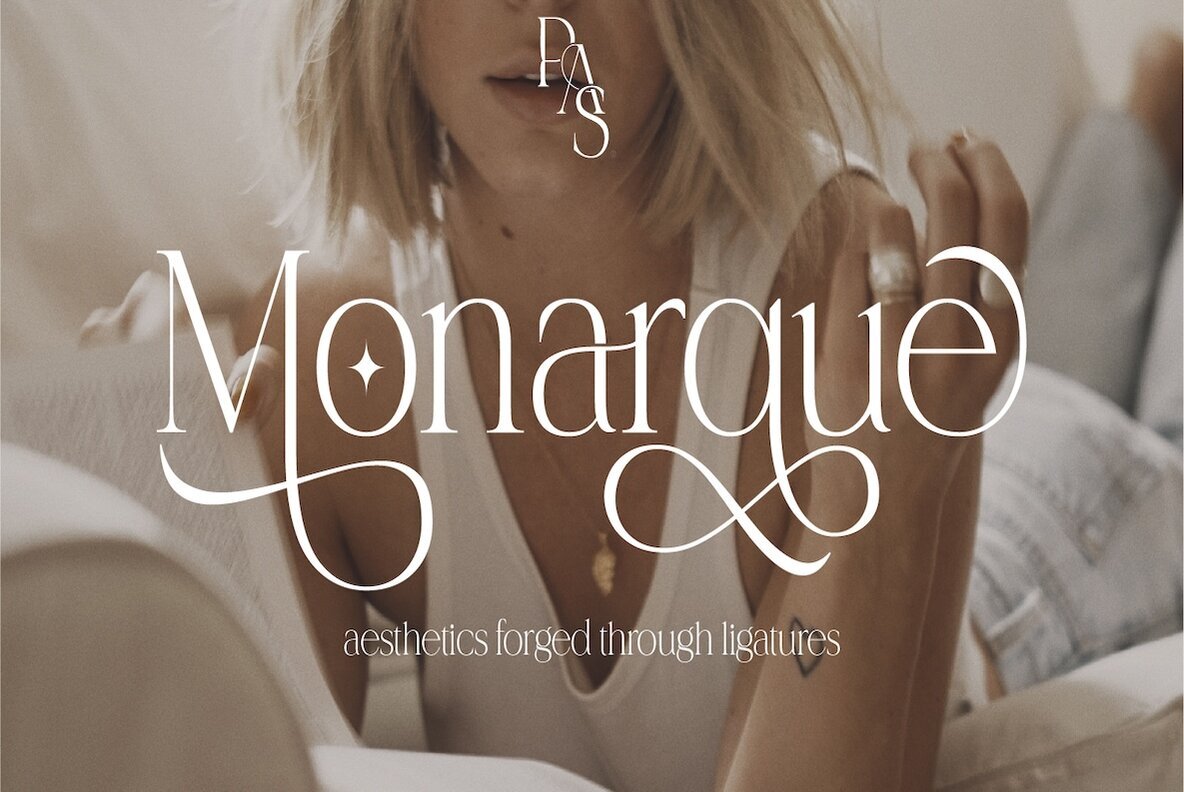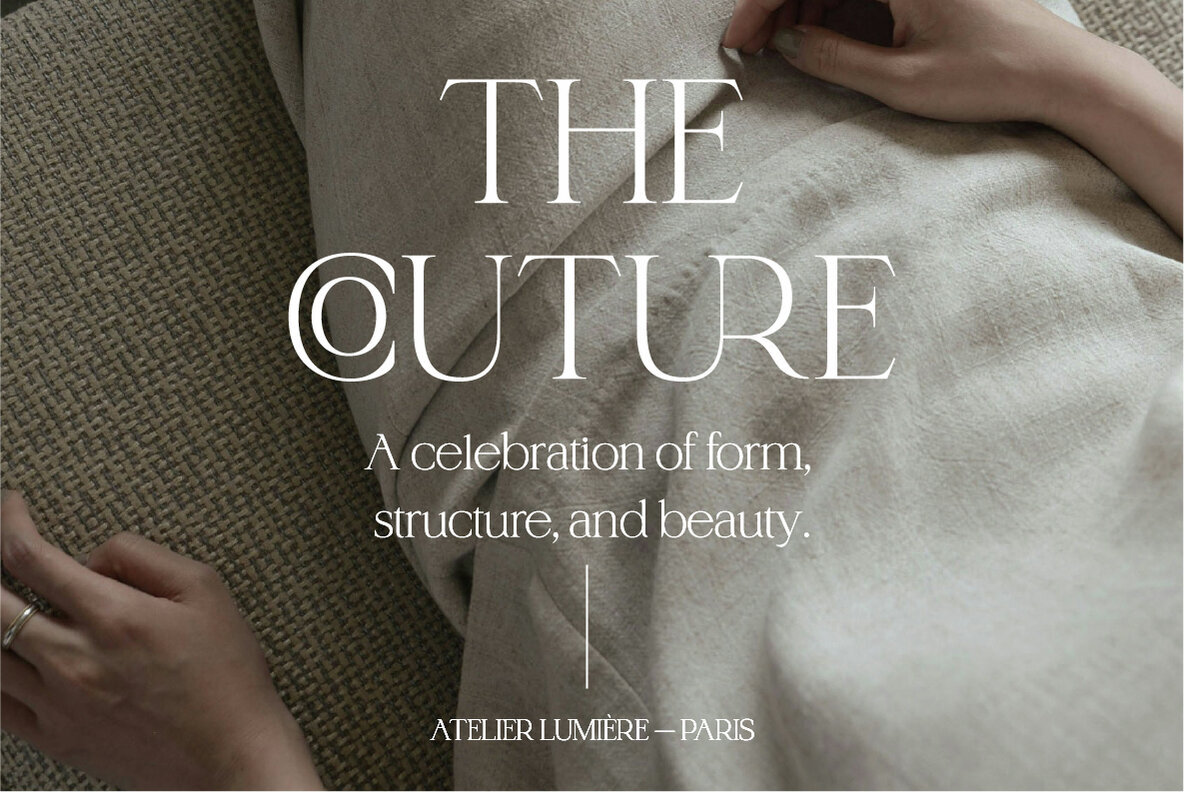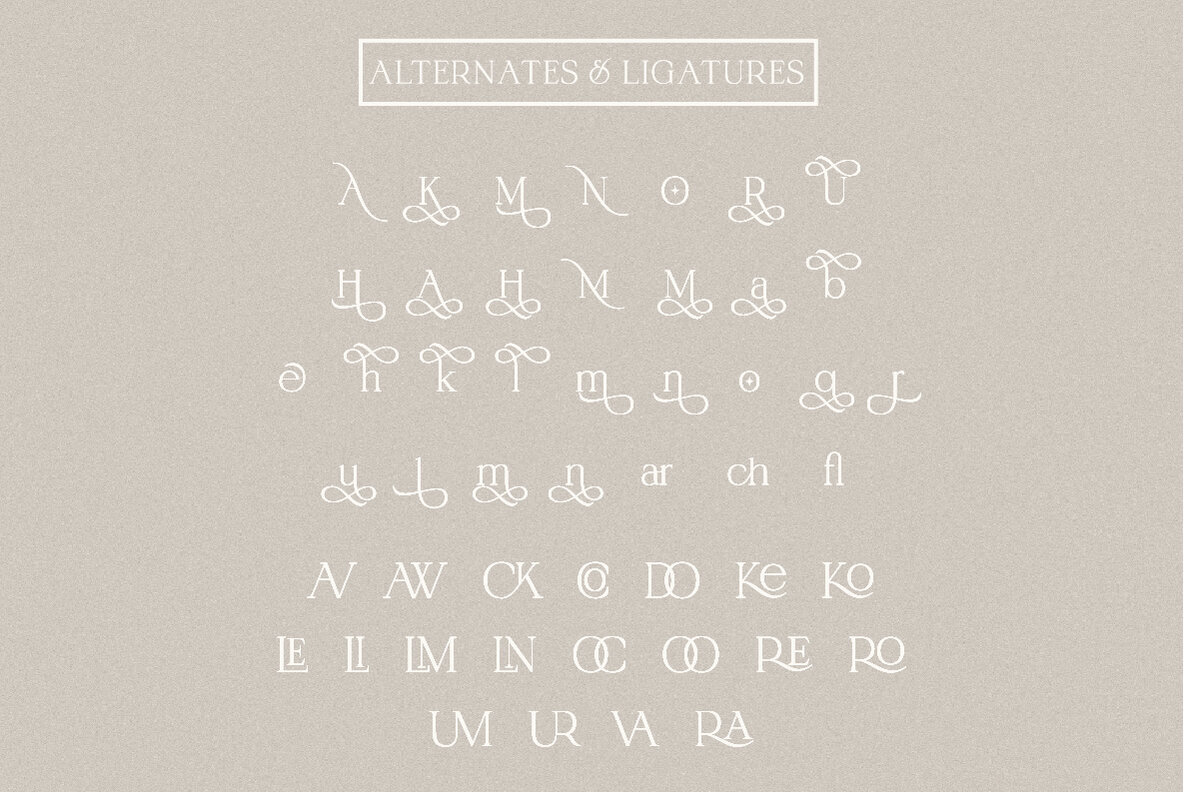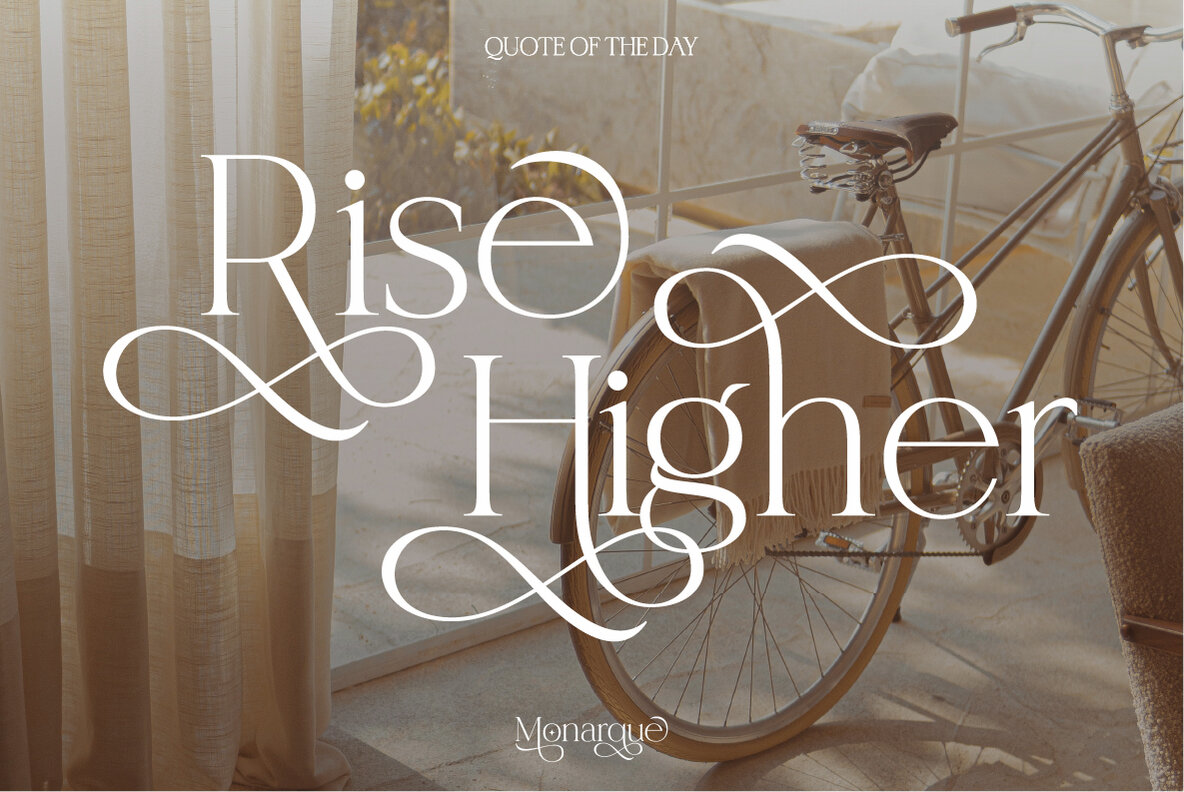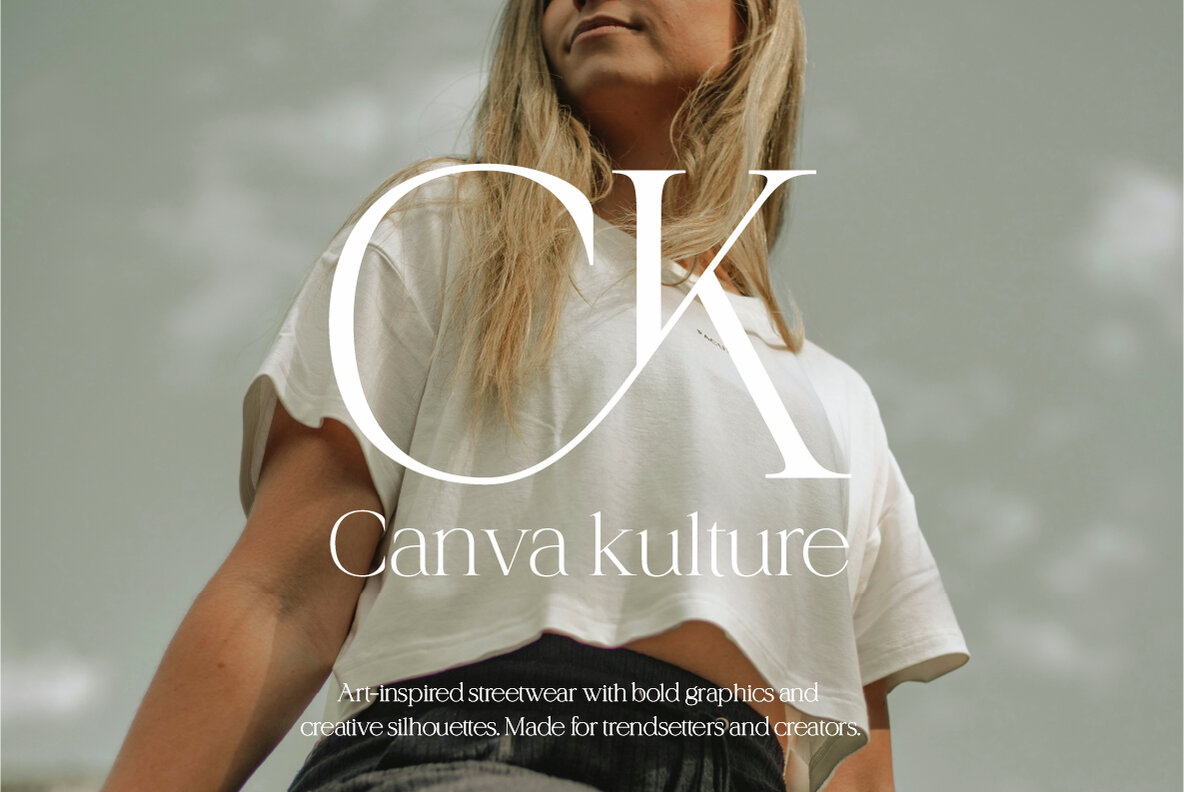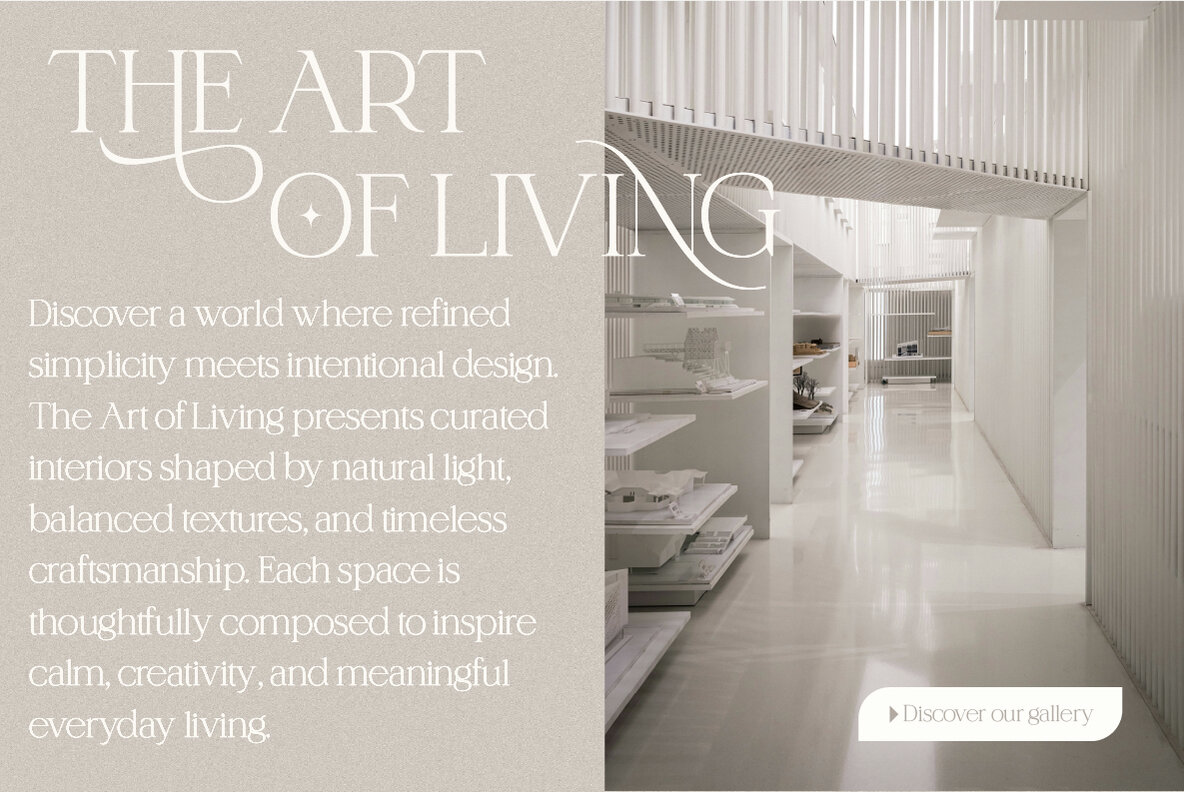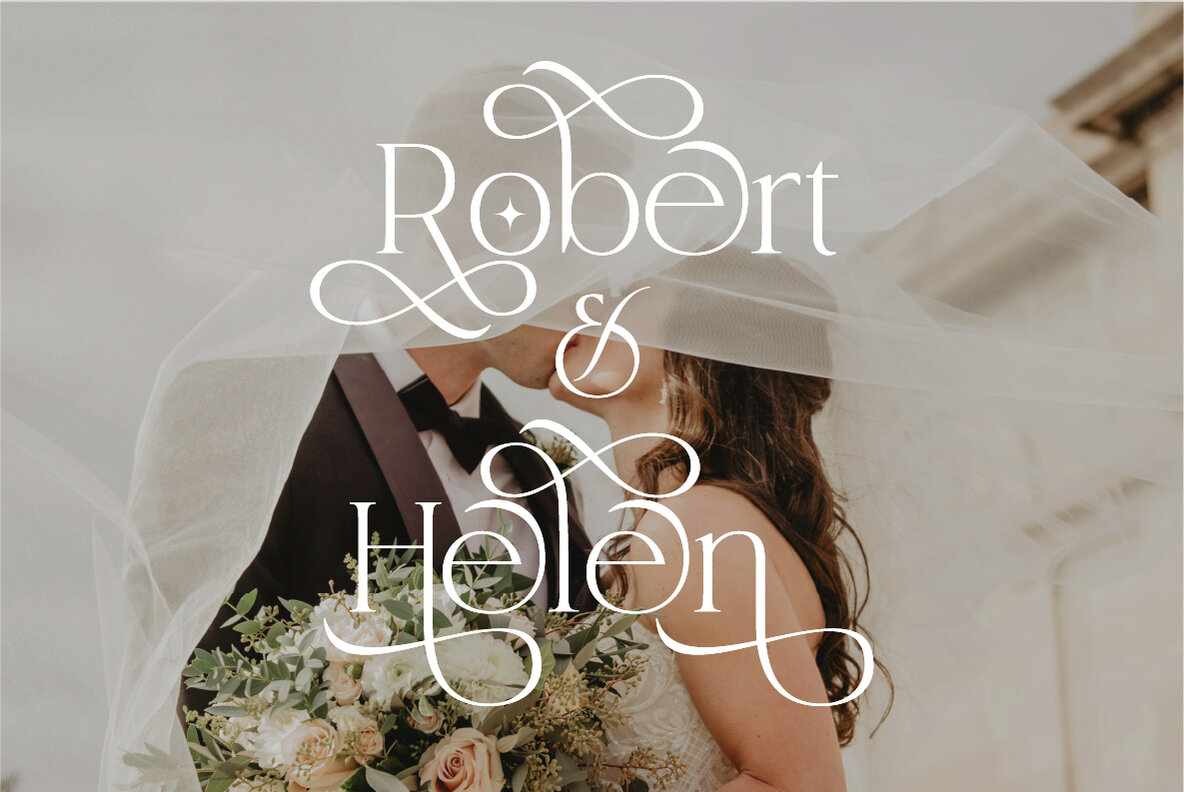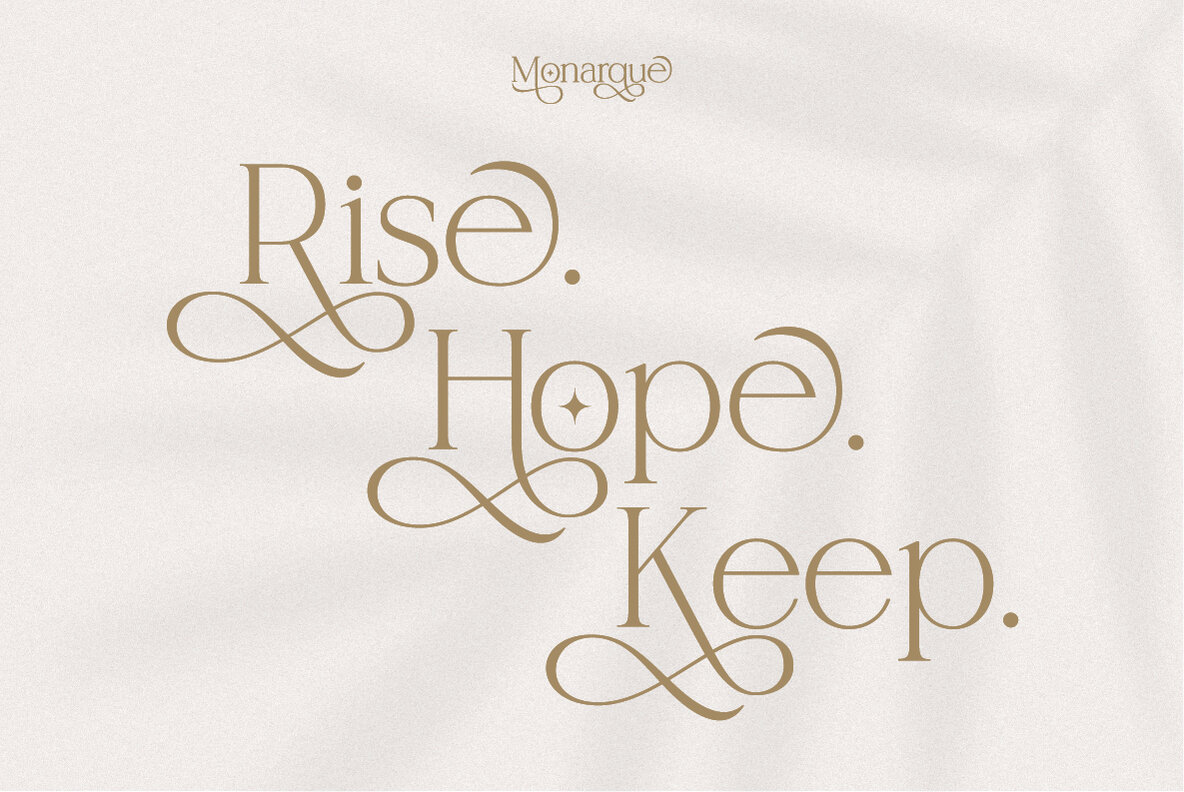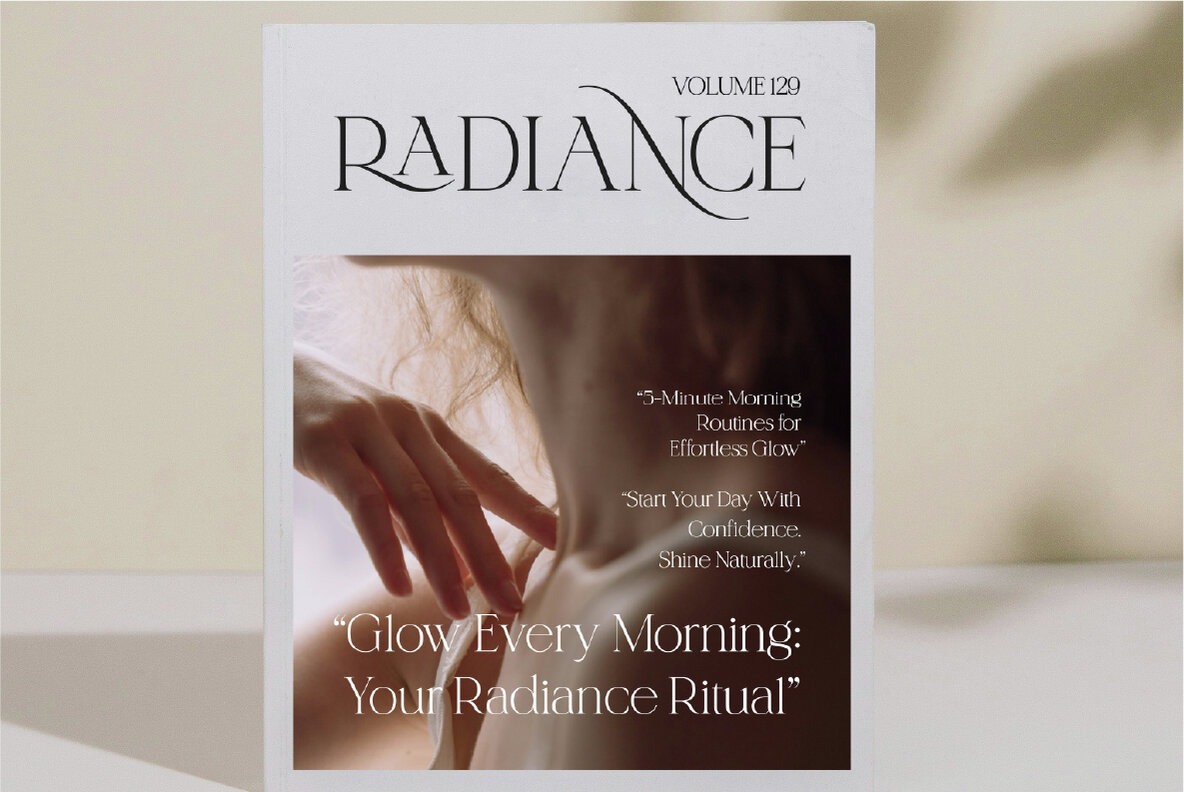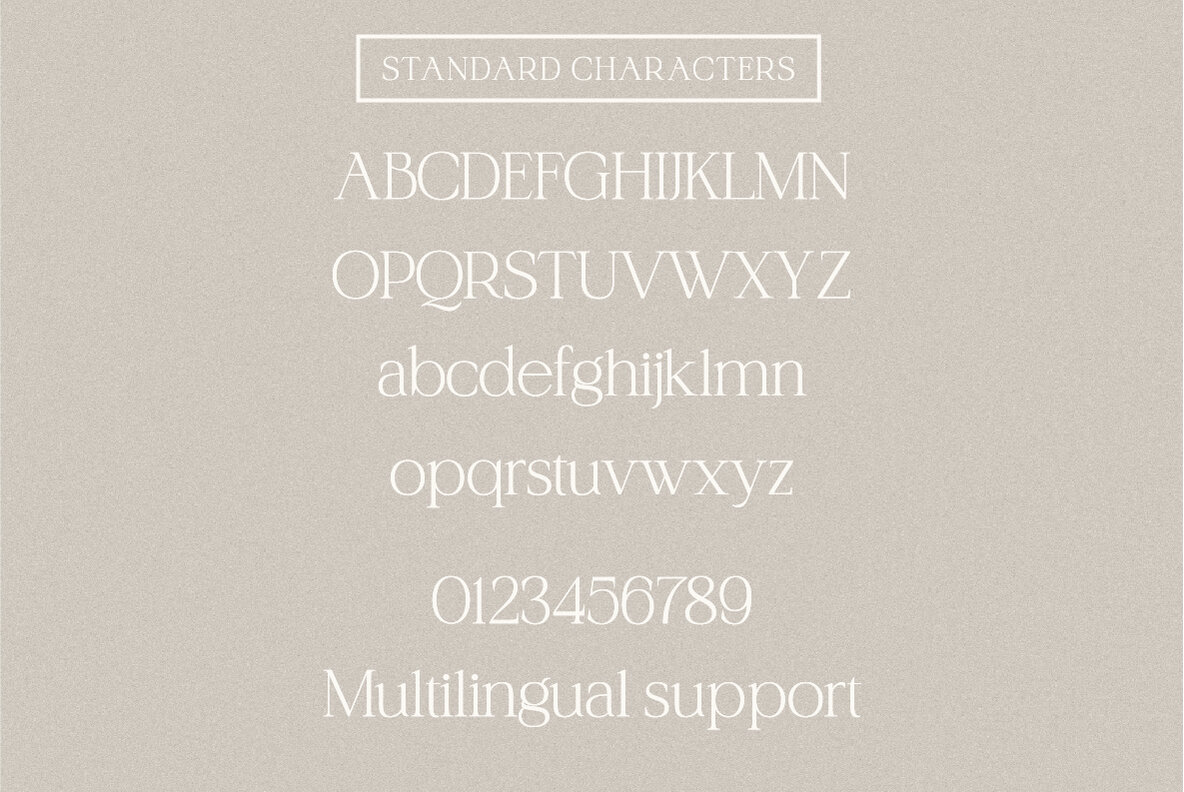
Monarque Font
Monarque Regular
Monarque captures attention with its refined serif details and imposing presence. This luxury display font brings balance between elegance and strength, creating a lasting impression in every design. Ideal for projects that prioritize distinction, Monarque’s aesthetic is inspired by timeless sophistication and tailored for creators seeking memorable, high-impact visual identities. Each letterform is thoughtfully designed for readability and style, making Monarque a reliable choice for branding, editorials, and luxury packaging. Its expressive yet clear design ensures versatility across headlines, invitations, and high-end promotional materials.Monarque – A Regal Serif Display Font for Distinctive Branding